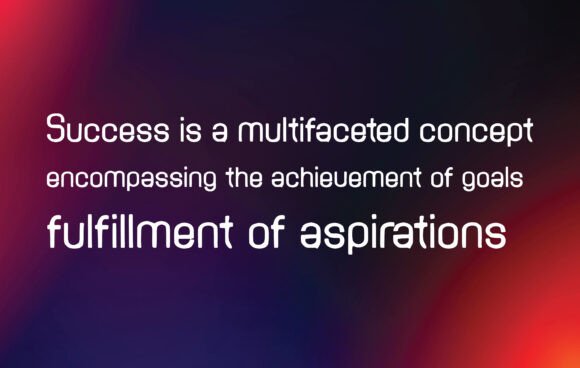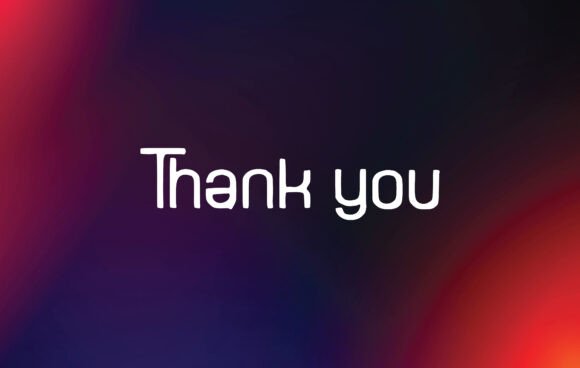
Introduction to Collins Font
Enter the Collins Font – a lovely and beautiful font that’s poised to take your creative ideas to new heights. With its versatility and elegance, this font is the perfect choice for creating eye-catching logos, branding, and quotes that leave a lasting impression. Whether you’re working on a free download or a high-quality design resource, Collins Font is an invaluable addition to your design arsenal.
Key Features of Collins Font
- High-quality design resource ideal for creative projects requiring a modern and elegant touch.
- Designed to be highly legible, Collins Font is perfect for use in a variety of contexts, from body text to headings and titles.
Honest Review: Collins Font
I recently had the opportunity to work with the Collins Font, and I must say it’s been a great addition to my design resources. One of the standout features of this font is its high quality and versatility, making it suitable for a wide range of creative projects.
- High-quality design that’s perfect for print or digital projects
- Transparent background, making it easy to work with on any design background
- Great for projects that require a modern and clean aesthetic
- May not be suitable for projects that require a lot of bold or dramatic font styles
- Some users may find the font to be a bit too minimalist, lacking in personality
Overall, I’m really impressed with the Collins Font. It’s a solid choice for any design project, and its free download option makes it a great resource for designers on a budget. If you’re looking for a high-quality font that’s easy to work with, I’d definitely recommend giving the Collins Font a try.
Collins Font
The Collins Font is a versatile and high-quality design resource ideal for various creative projects. You can download it for free to enhance your designs with its unique style and characteristics.
For optimal results, use the Collins Font with a transparent background to achieve a clean and professional look. Experiment with different font sizes and styles to find the perfect combination for your project.
The Collins Font is suitable for a wide range of creative projects, including graphic design, typography, branding, and marketing materials. Its unique style and high quality make it an excellent choice for designers looking to add a touch of elegance to their work.